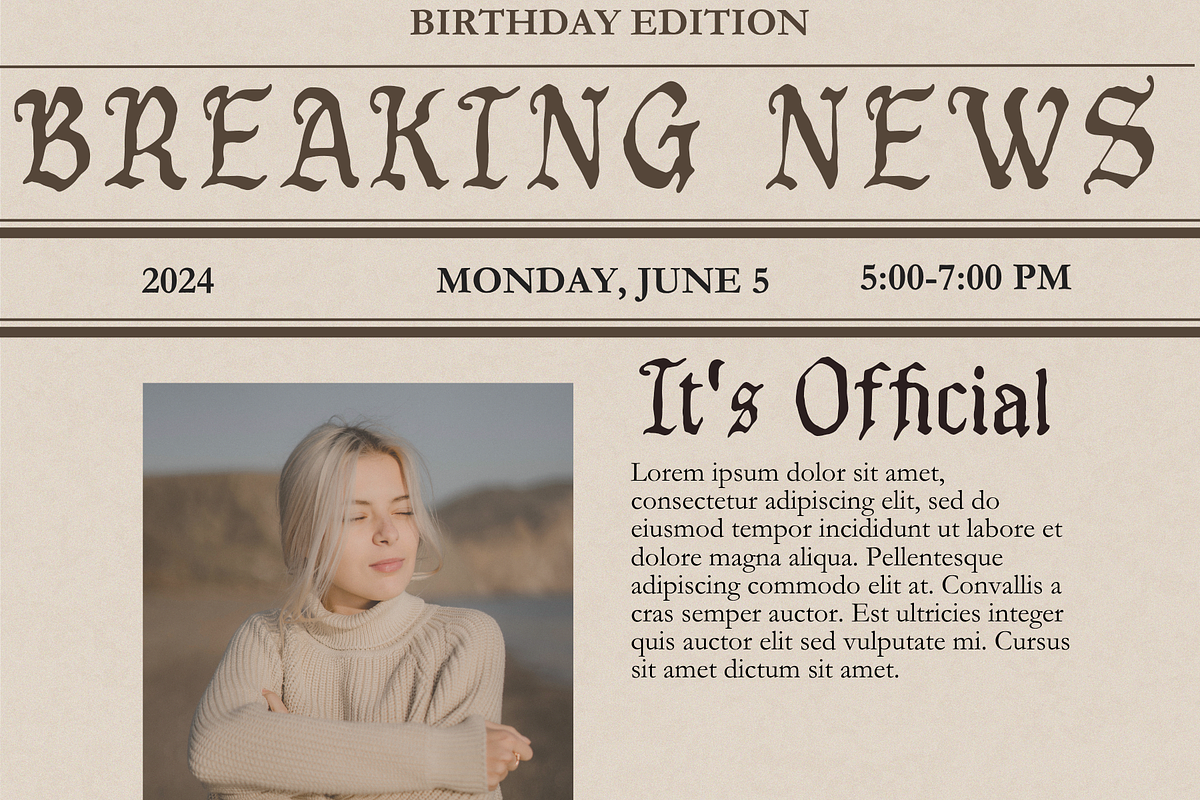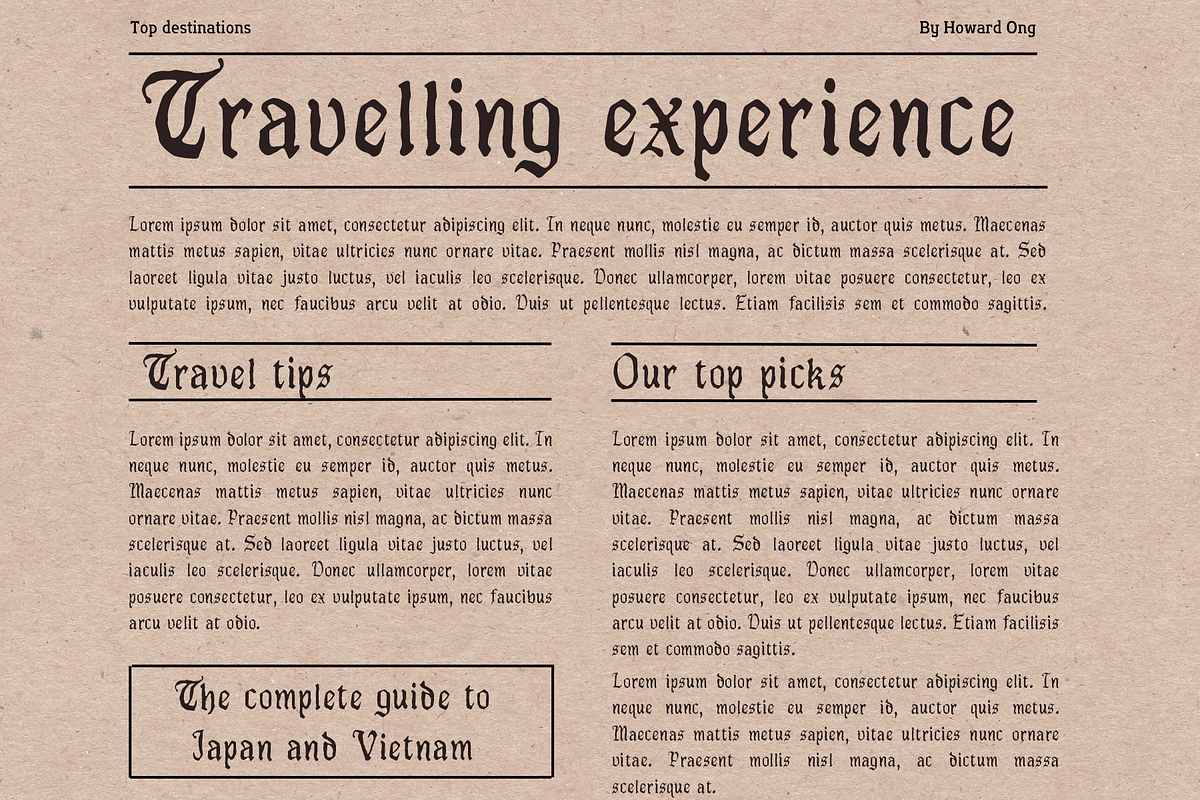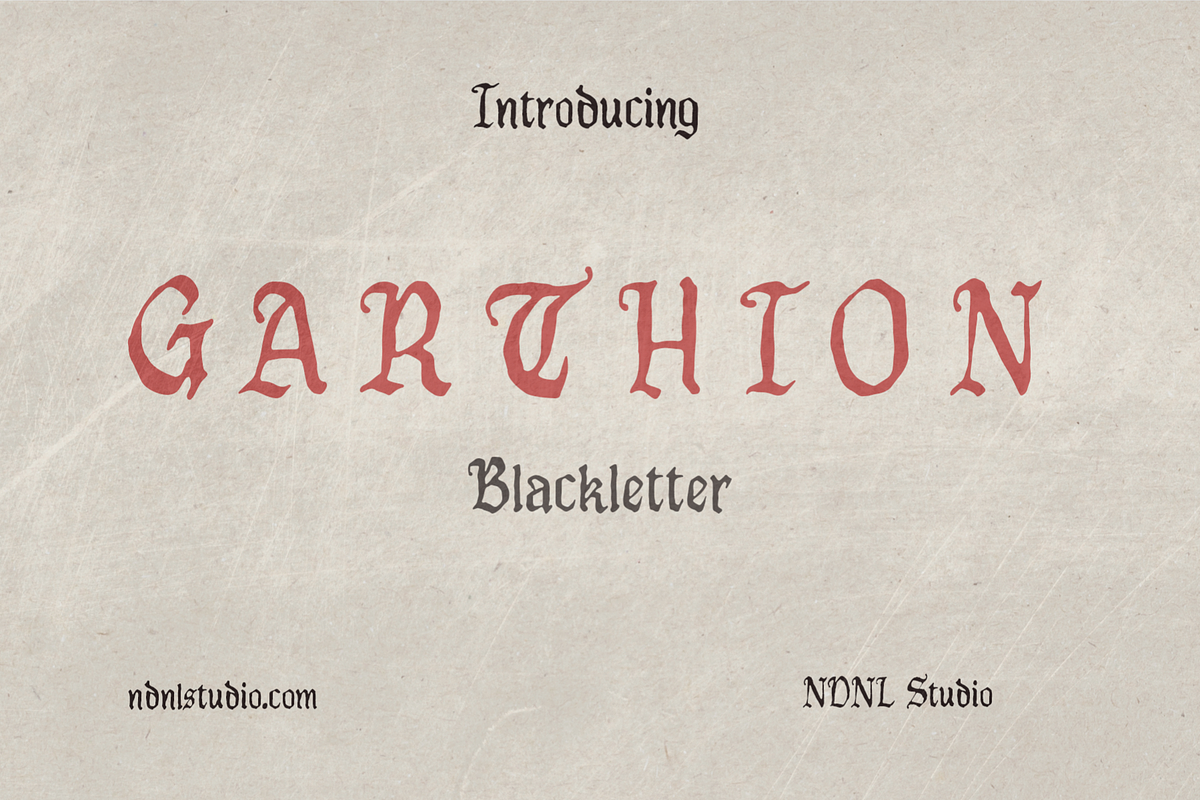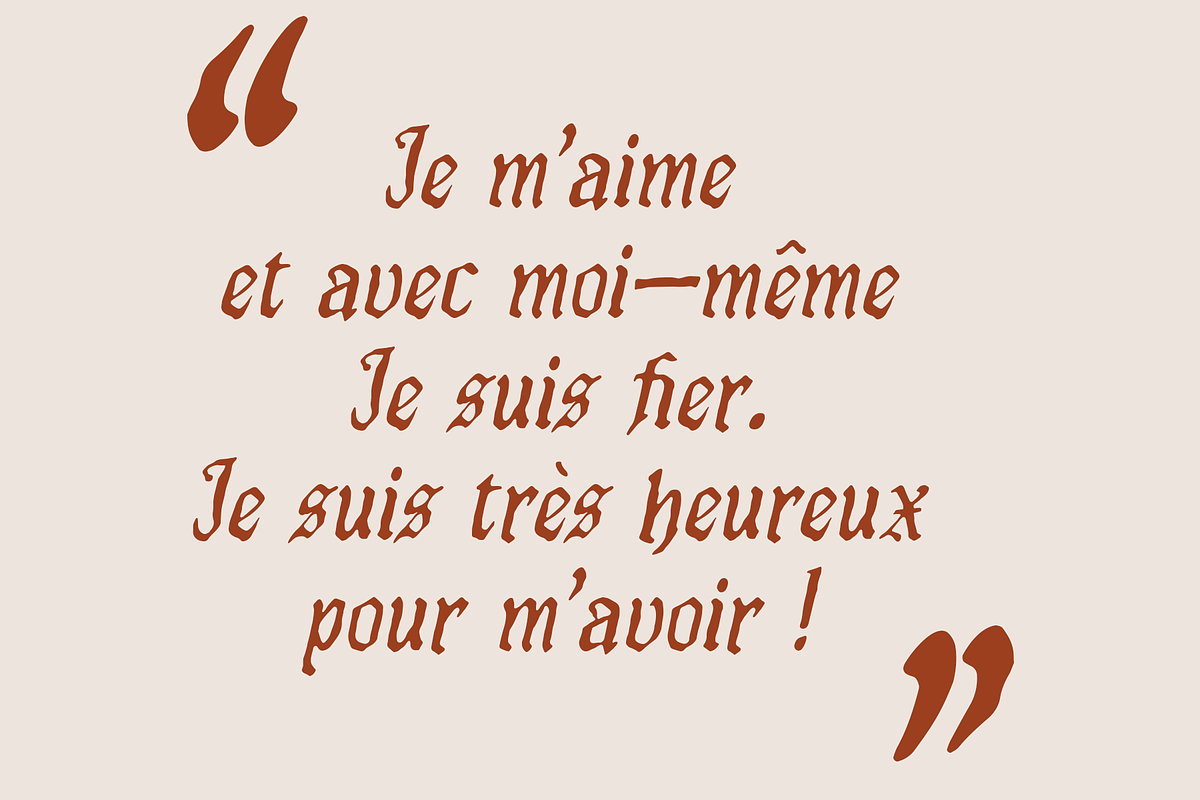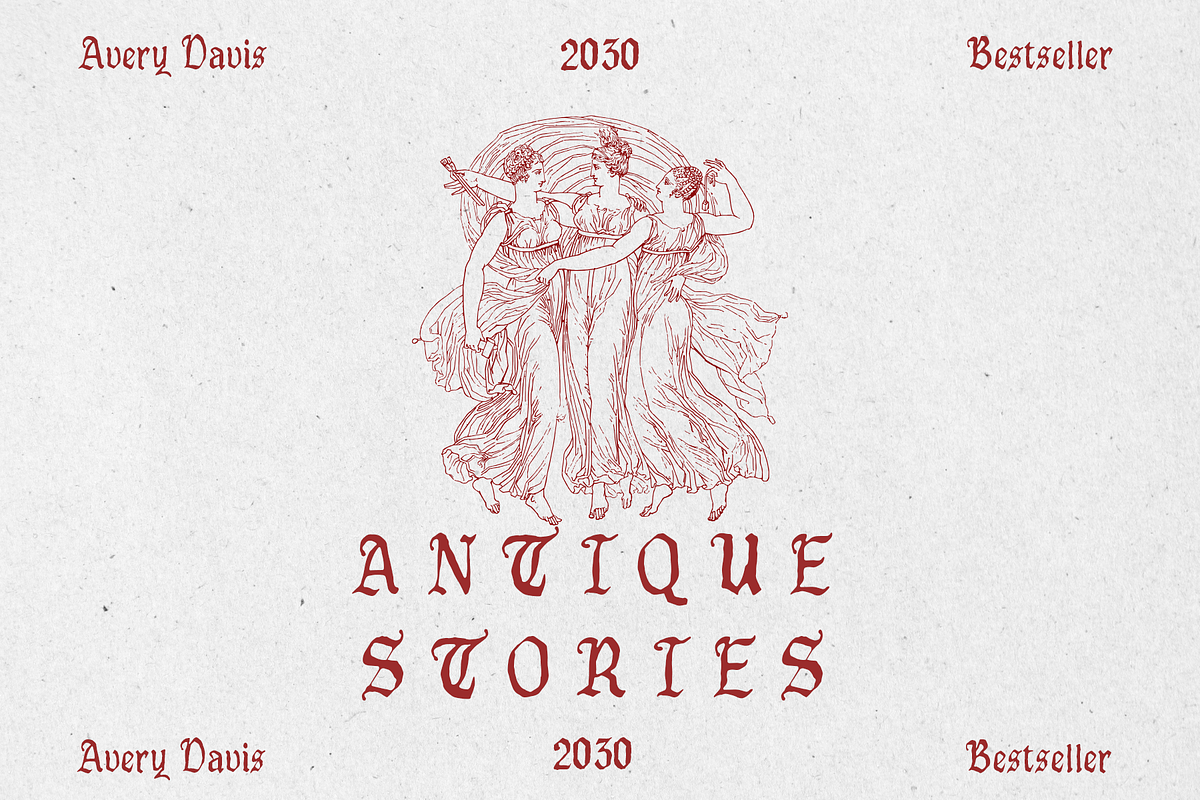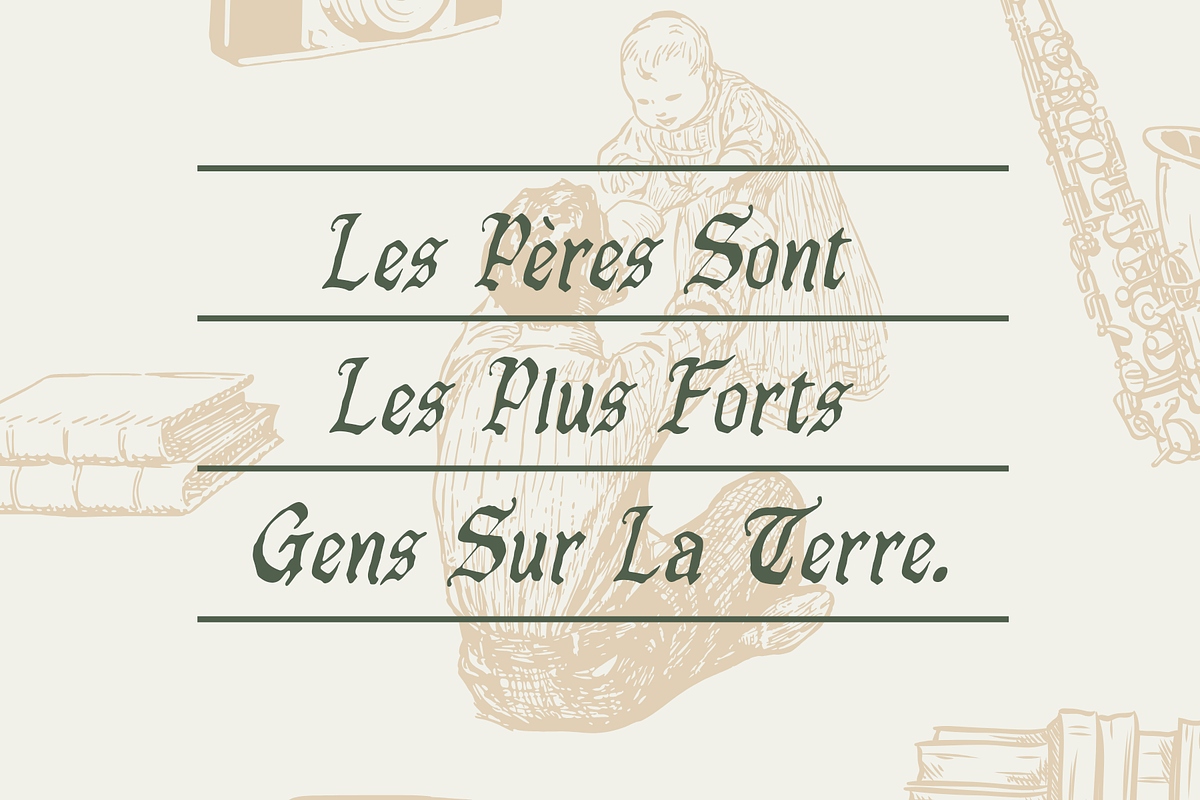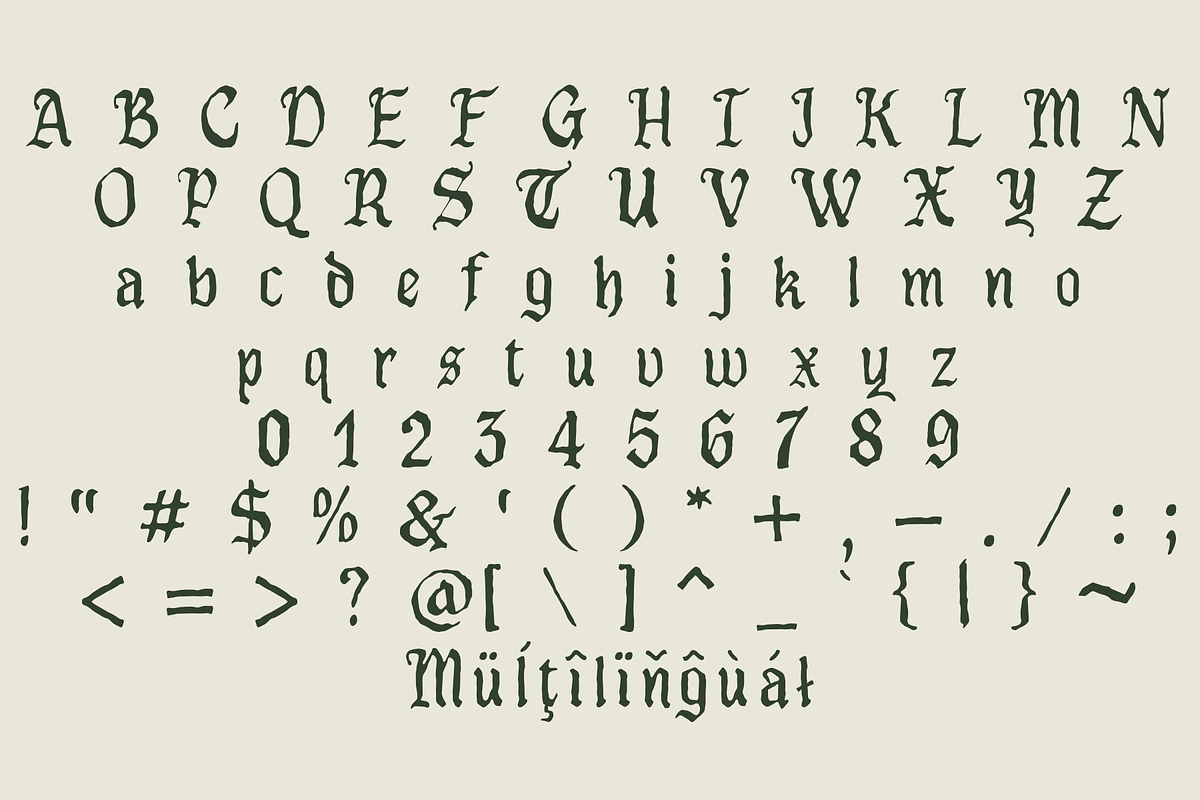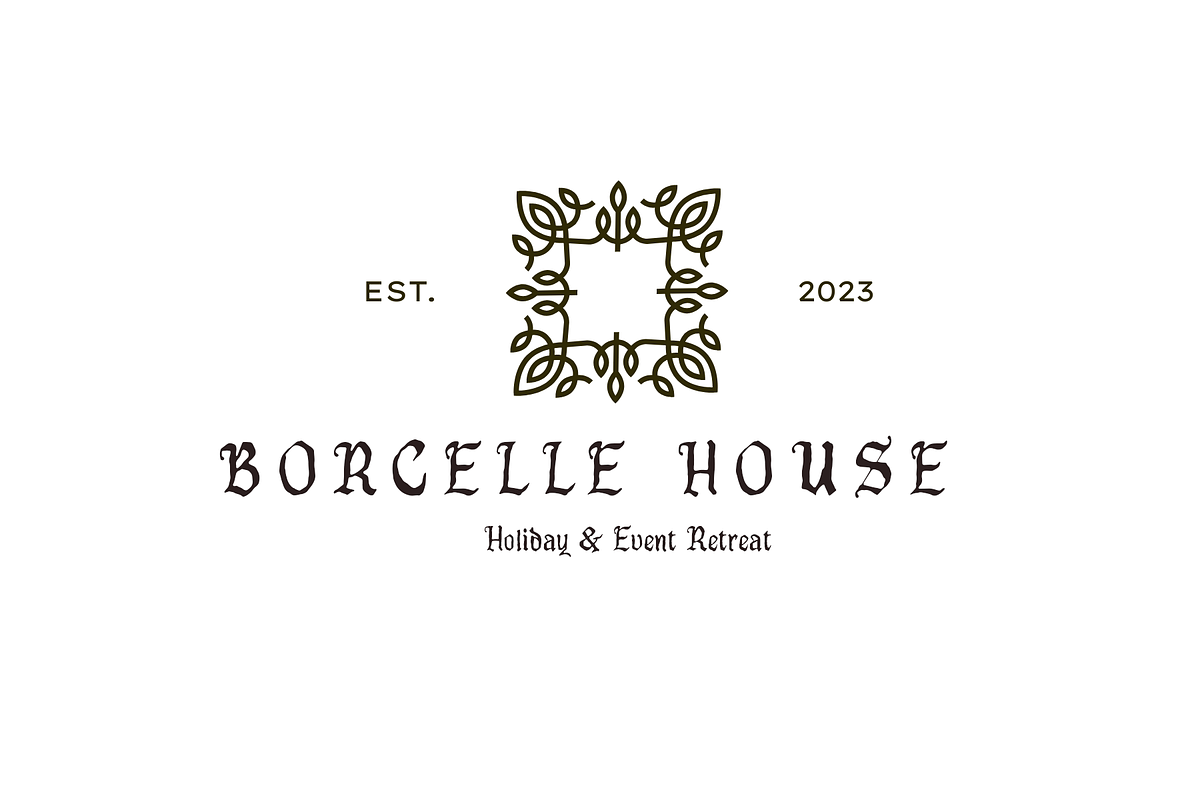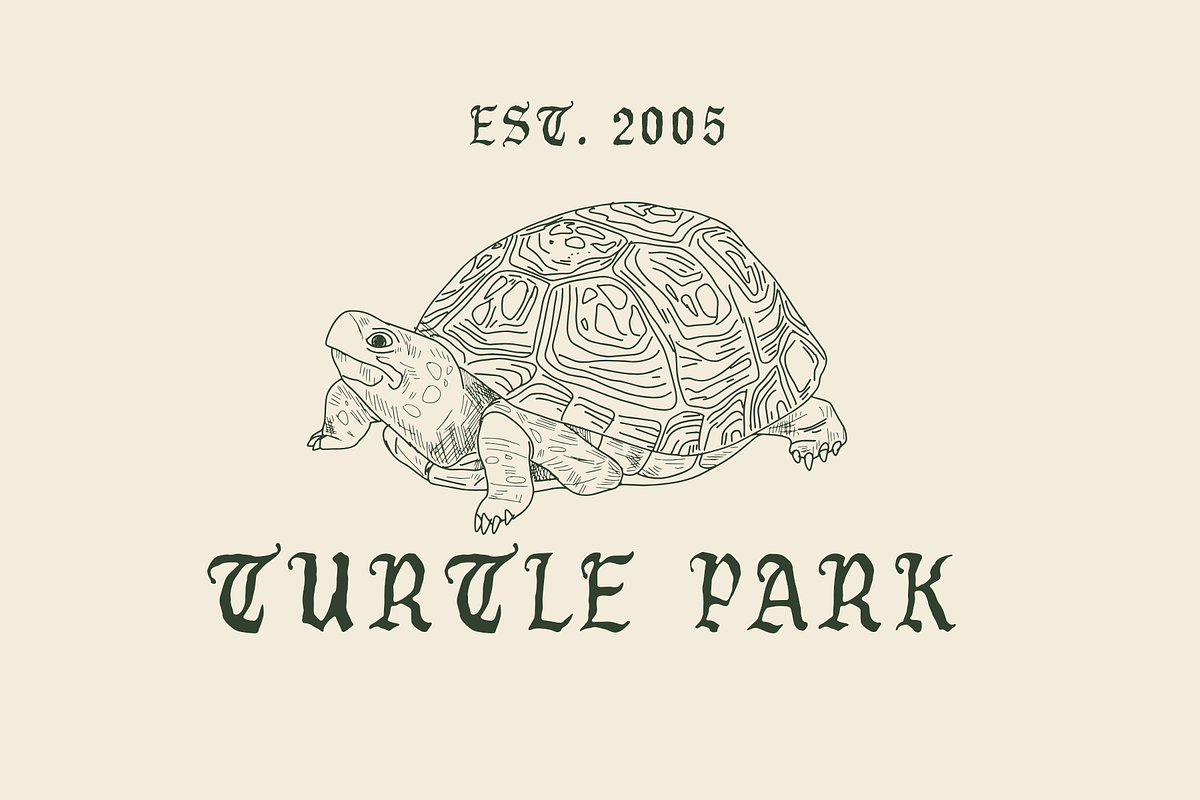
Garthion – Blackletter Font
Garthion is a Blackletter typeface that embodies a strong classical spirit, inspired by medieval calligraphy traditions. With its sharp strokes, intricate details, and bold structure, Garthion evokes a sense of elegance, mystery, and historical depth.
This font is perfect for vintage, gothic, fantasy-themed designs, book covers, artistic posters, or any project that seeks a distinctive and dramatic visual identity. Garthion is more than just a typeface—it’s a timeless aesthetic statement for those who appreciate classic beauty.
Character set A-Z
Accented Characters (West Europe)